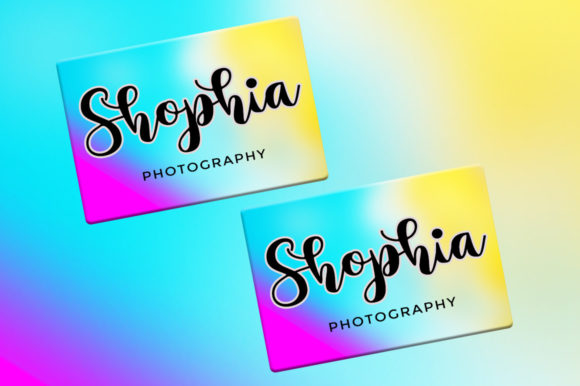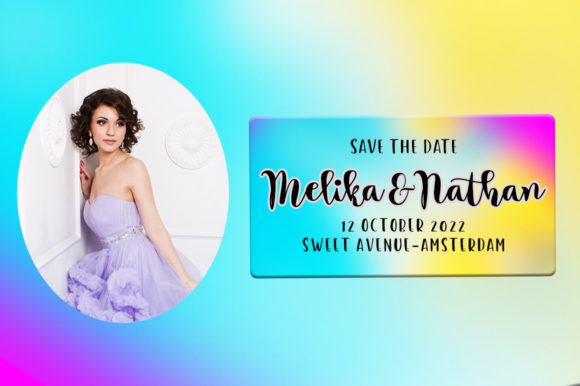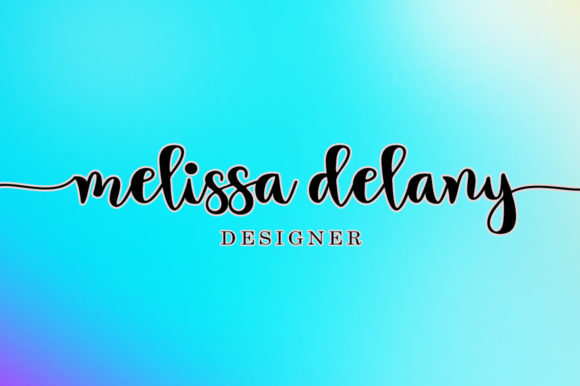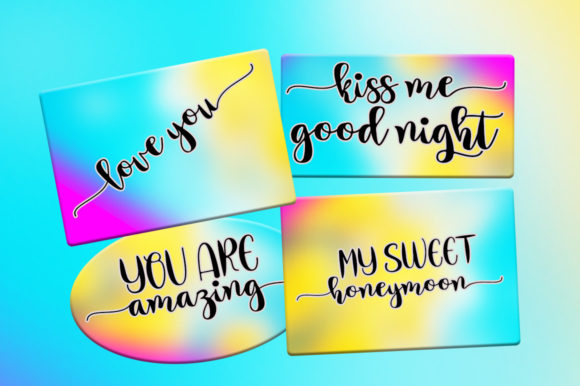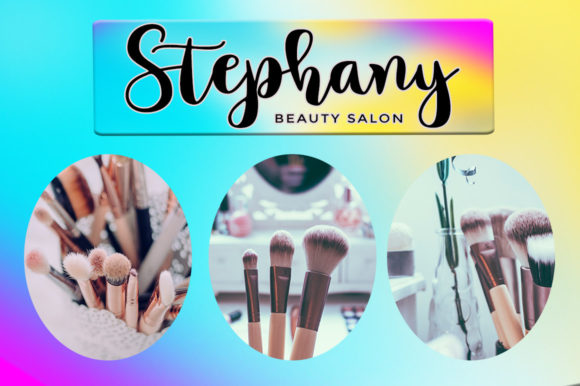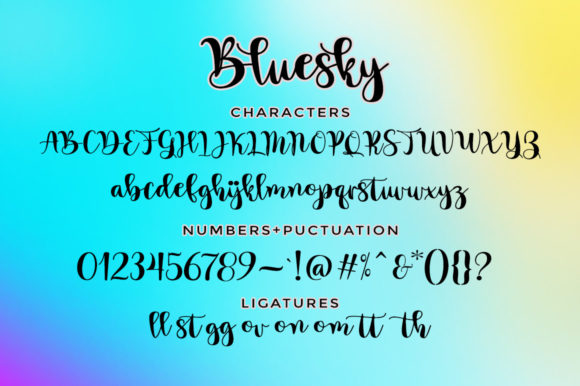
Bluesky Script Font
About Bluesky Script Font
Bluesky Script is a lovely handwritten font. Whatever the topic, this font will be a wonderful asset to your font library, as it has the potential to enhance any creation.